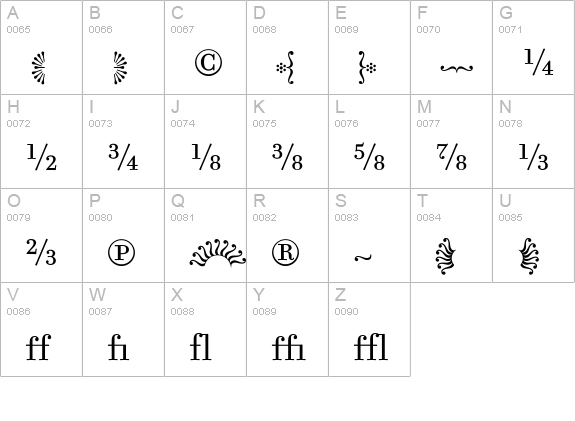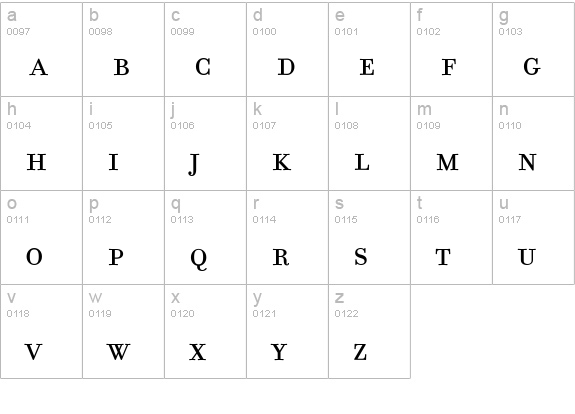
FilosofiaFractions Font Details
FilosofiaFractions font is a versatile and elegant typeface that beautifully combines the precision of fractions with the artistic flair of calligraphy. Its delicate strokes and balanced proportions make it perfect for a wide range of design projects, from branding to editorial layouts. What sets FilosofiaFractions font apart is its seamless integration of fractions, allowing for clear and easy-to-read numerical expressions. This attention to detail makes it a valuable tool for designers and typographers who require precise and professional typography in their work. And the best part? FilosofiaFractions font is completely free to download at FontsMarket.com, making it accessible to all designers who appreciate the beauty of well-crafted typography. Whether you're working on a print project or a digital design, FilosofiaFractions font is sure to elevate your work with its sophisticated charm and functional design. Download it today and add a touch of elegance to your next project.